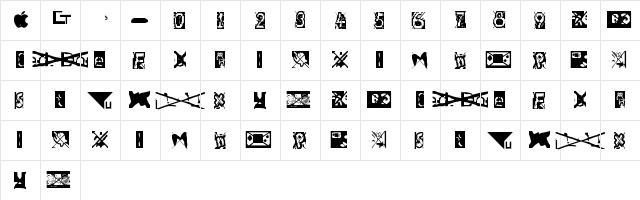
Wario Ware: Twisted Regular
Design Context for Wario Ware: Twisted Typeface
Wario Ware: Twisted is a composed and adaptable typeface that performs quietly and consistently across a wide range of design contexts.